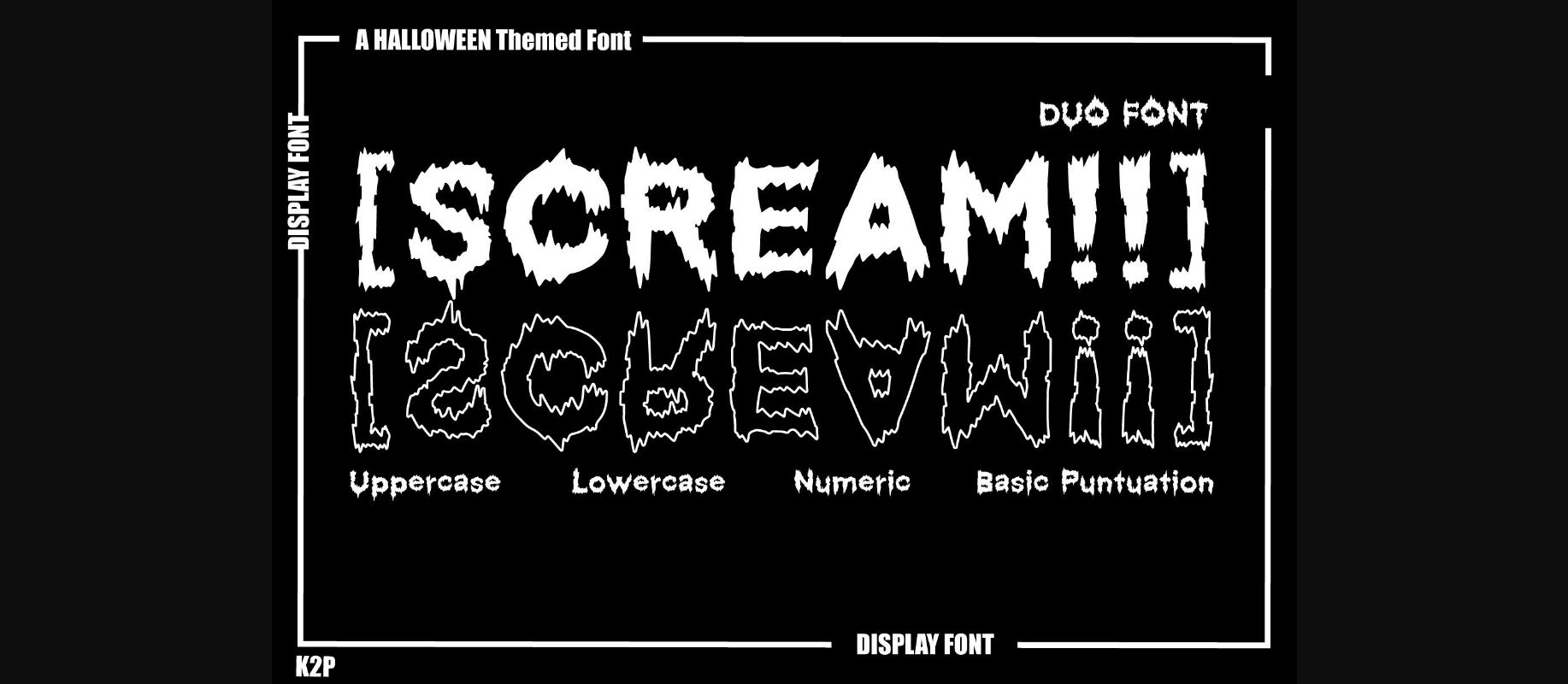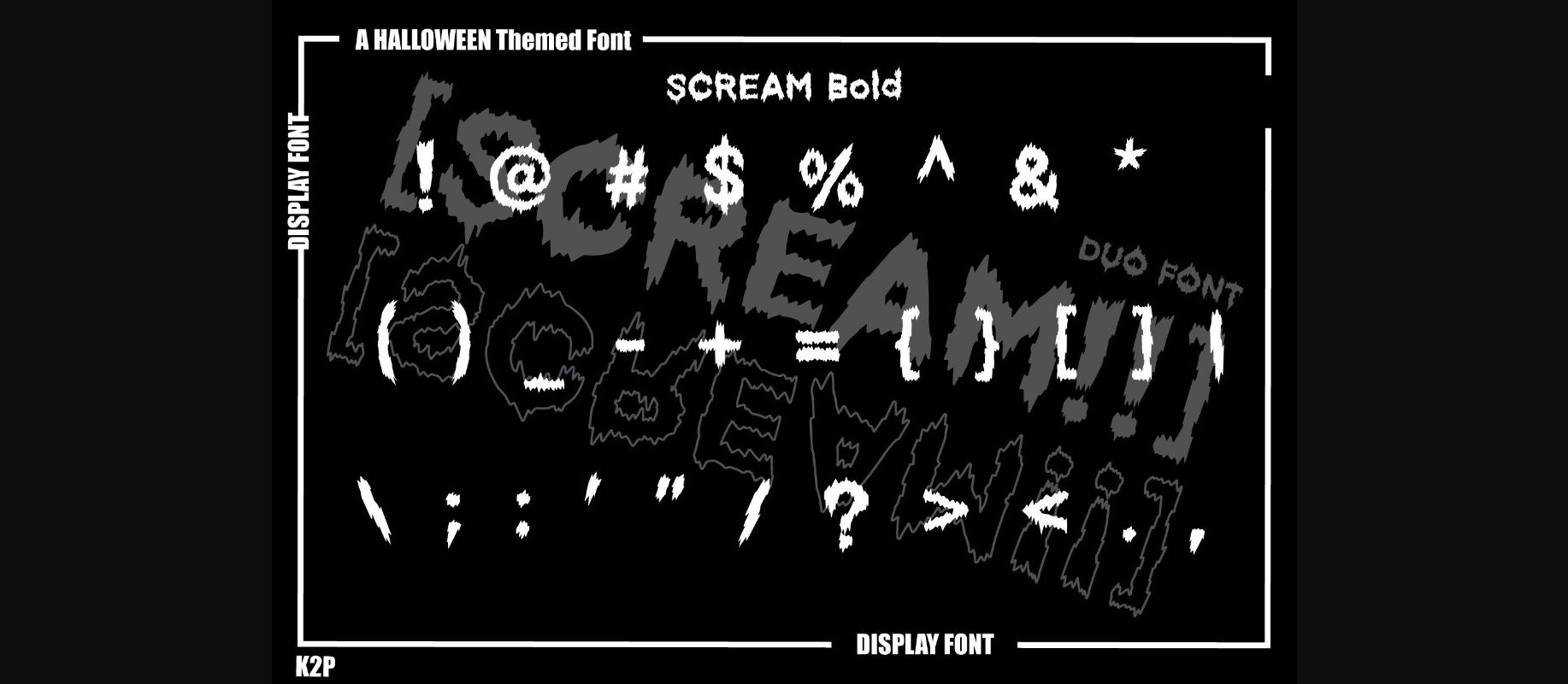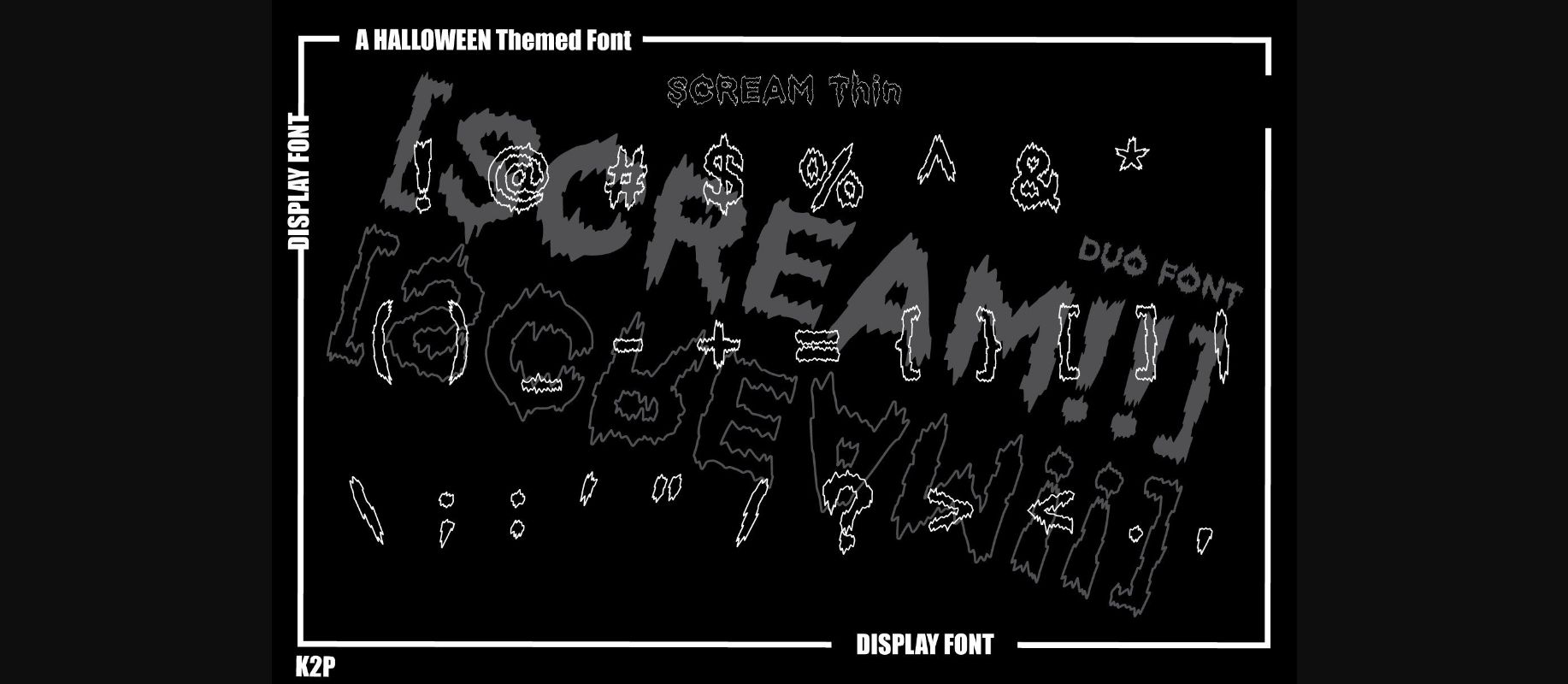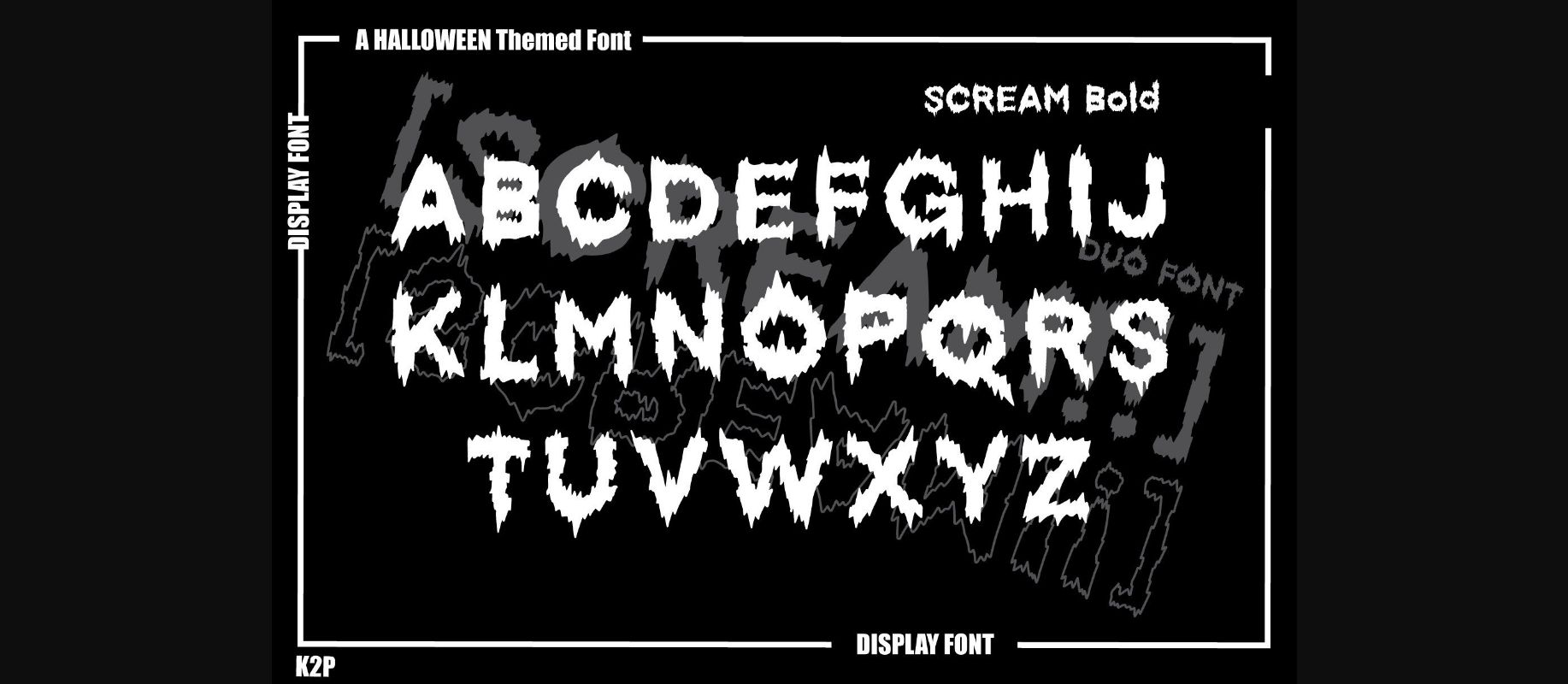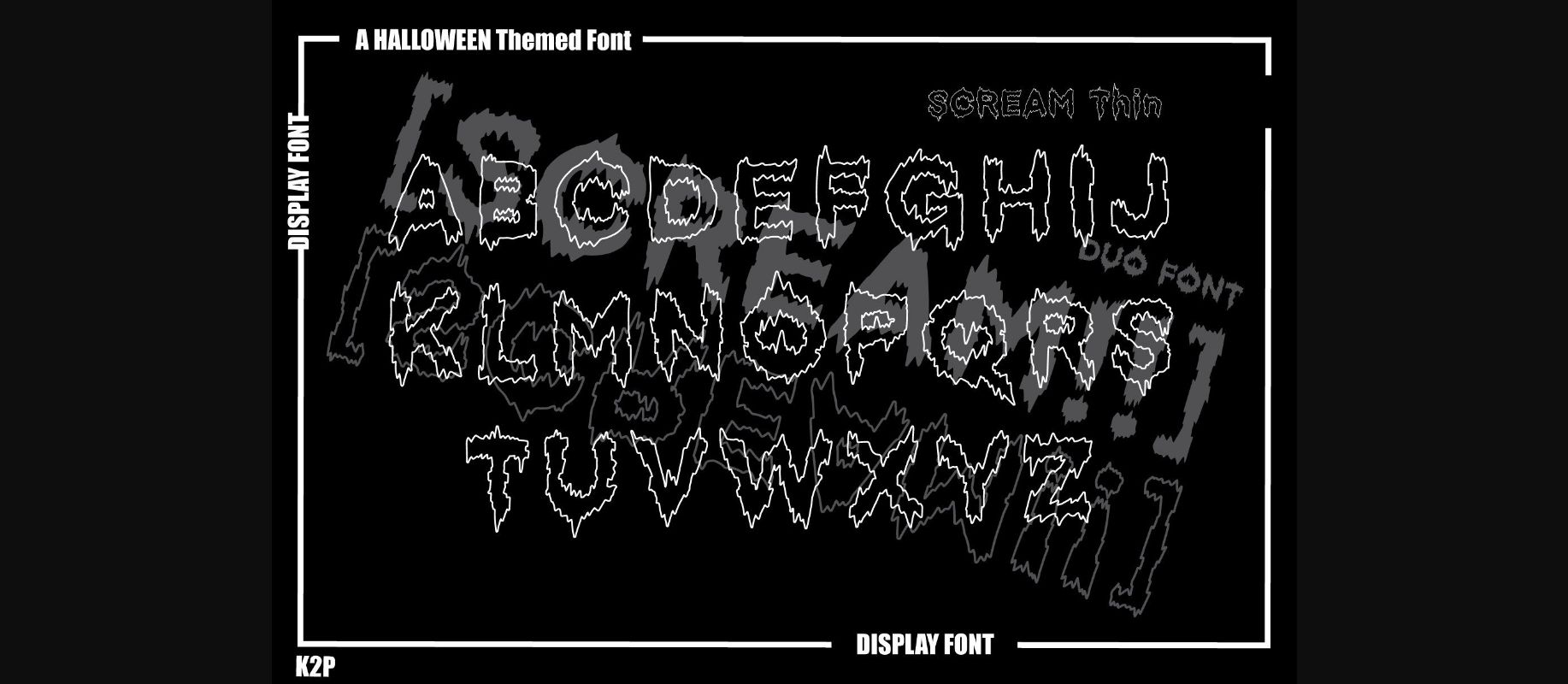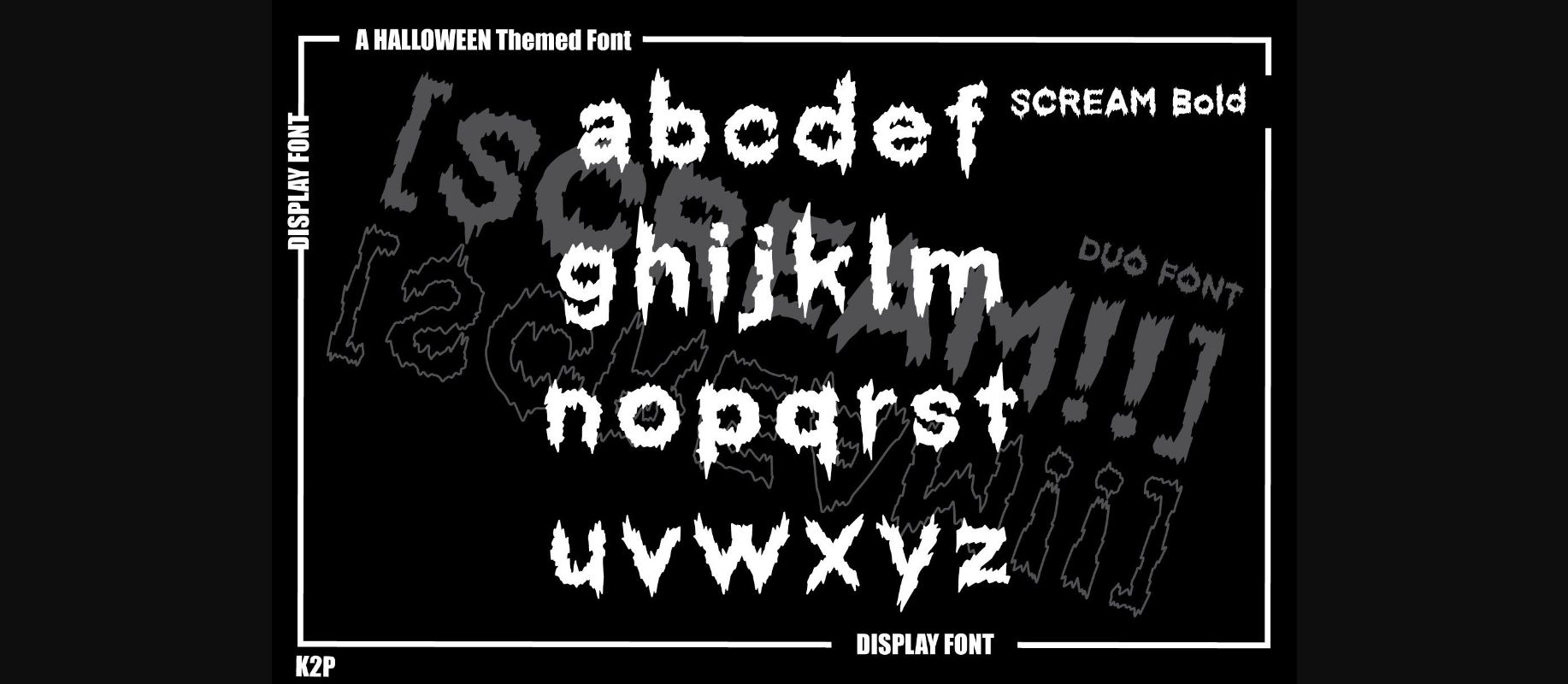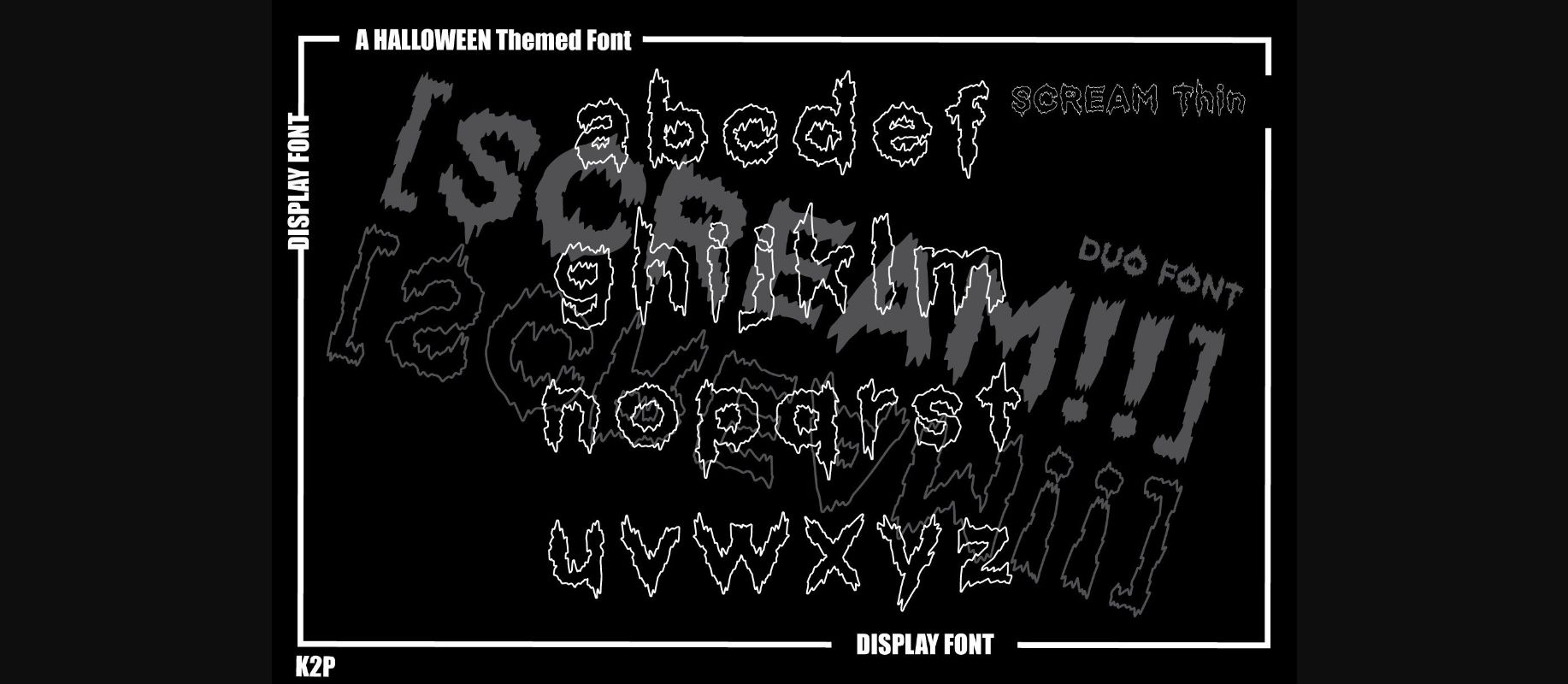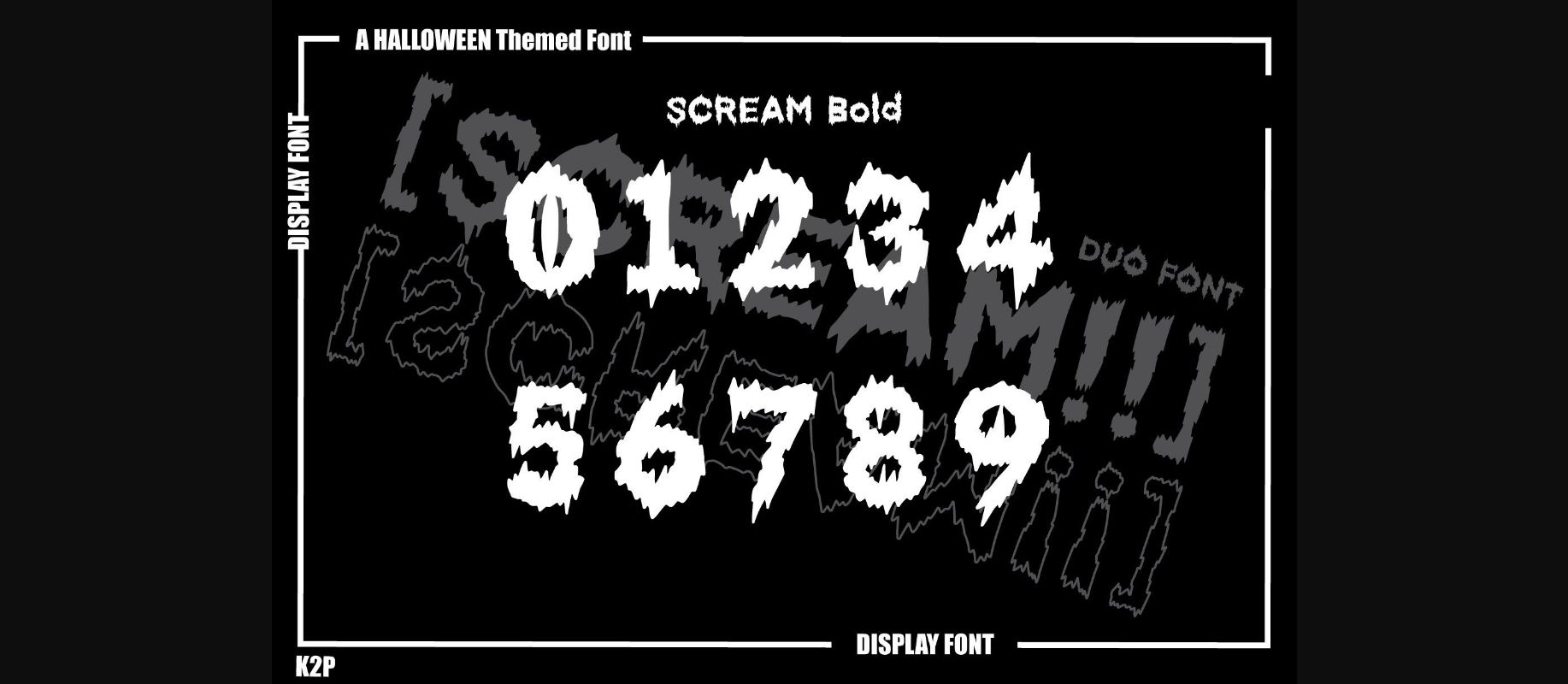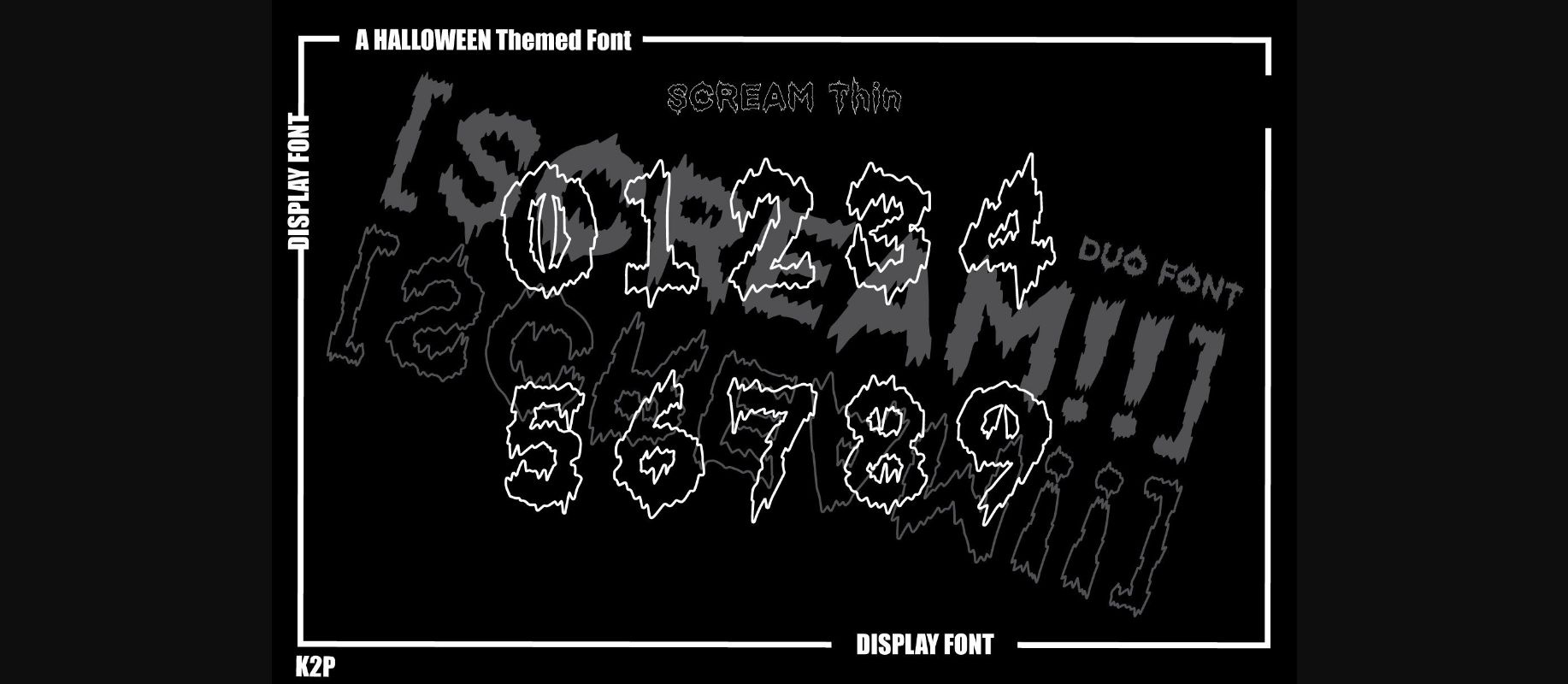
HomeDecorative Fonts Font Decorative Fonts [scream!!] Font FacebookXPinterestWhatsApp 1 of 11 ... [scream!!] Font Poster 2... [scream!!] Font Poster 3... [scream!!] Font Poster 4... [scream!!] Font Poster 5... [scream!!] Font Poster 6... [scream!!] Font Poster 7... [scream!!] Font Poster 8... [scream!!] Font Poster 9... [scream!!] Font Poster 10... [scream!!] Font Poster 11... About [scream!!] Font [Scream!!] is a cool and quirky decorative font. Whether you use it for cartoon-related designs, children’s games, or just any creation that requires a lovely touch, this font will be an amazing choice. DOWNLOAD NOW People also explored Family Farmhouse Font Madelin Cheryl Font View of Santorini Font Aerostyle Font Via Vallens Font Regina Font Safari Font Citrus Tonic Font Alfiyah Font 271 0 Tags[scream!!]Scream Font Previous articleDoctor FontNext articleDrip Font LEAVE A REPLY Cancel reply Comment: Please enter your comment! Name:* Please enter your name here Email:* You have entered an incorrect email address! Please enter your email address here Website: Save my name, email, and website in this browser for the next time I comment. Personal Use Free 5cent Free Graffiti Personal Use Free Read more about this font Vivacious Personal Use Free Read more about this font DREXS Personal Use Free Read more about this font Nickainley Personal Use Free Read more about this font BLOG Free Fonts Risk: Why Free Fonts Can Be Dangerous for Designers Free Fonts Risk: Why Free Fonts Can Be Dangerous for Designers Using free fonts is a common practice in web and graphic design. However, the... Transform Your Website: Elevate Your Typography with 7 Best Web Font Generators Using Fonts in Digital Marketing: Tips to Strengthen Your Brand Identity Where to Buy American Fonts Online in 2024